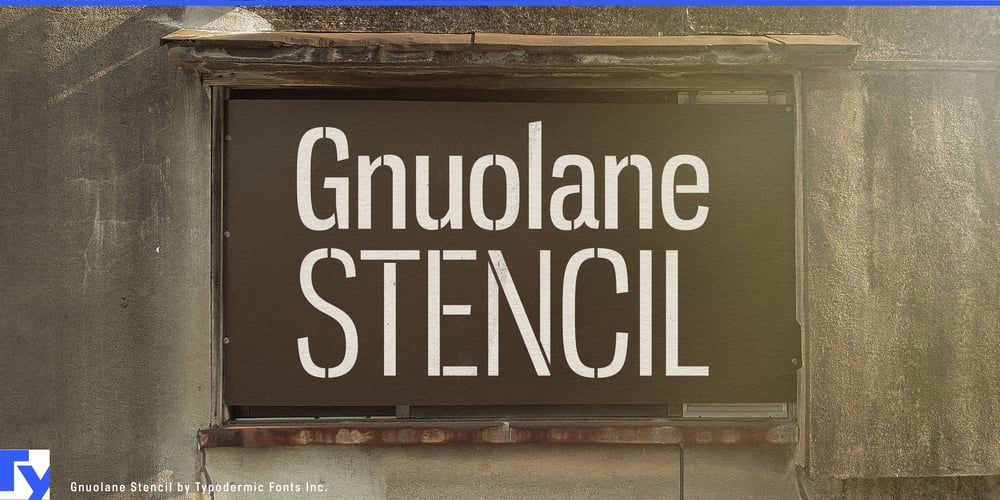
Gnuolane Stencil Font Family was designed by Ray Larabie and published by Typodermic. Gnuolane Stencil contains 5 styles and family package options. Enter the world of Gnuolane Stencil, a typeface that marries the precision of military stencils with the cool sophistication of mid-century design. This font family is a masterful reimagining of early twentieth-century grotesques, infused with the sleek, superelliptical forms that defined the 1960s aesthetic.Gnuolane Stencil doesn’t just catch the eye—it commands attention. Its slim, carefully crafted breaks evoke the authoritative presence of official signage while maintaining an air of refinement. Picture it adorning the fuselage of a supersonic jet or gracing the facade of a cutting-edge art gallery; Gnuolane Stencil is equally at home in high-stakes and high-style environments. The true strength of Gnuolane Stencil lies in its versatility. With five meticulously calibrated weights at your disposal, you have the tools to fine-tune your message’s impact. From the whisper-quiet elegance of its lighter weights to the thunderous presence of its boldest cuts, Gnuolane Stencil adapts to your vision with chameleon-like ease.This typeface isn’t just about visual appeal—Gnuolane Stencil speaks fluently in a vast array of Latin-based European languages, making it an ideal choice for international branding and multilingual publications. Gnuolane Stencil is part of a greater typographic ensemble. When you need to shift gears, its siblings—the clean-cut Gnuolane and the ebullient Gnuolane Jump—are ready to step in, ensuring your typographic palette remains harmonious across diverse applications.In a world where clarity and style often seem at odds, Gnuolane Stencil strikes a perfect balance. It’s the typeface for designers who understand that true authority doesn’t shout—it resonates. Whether you’re crafting a logo that needs to stand the test of time, headlines that demand to be read, or signage that guides with quiet confidence, Gnuolane Stencil delivers with understated elegance.